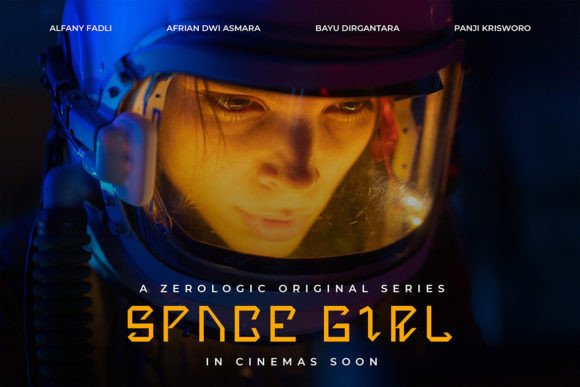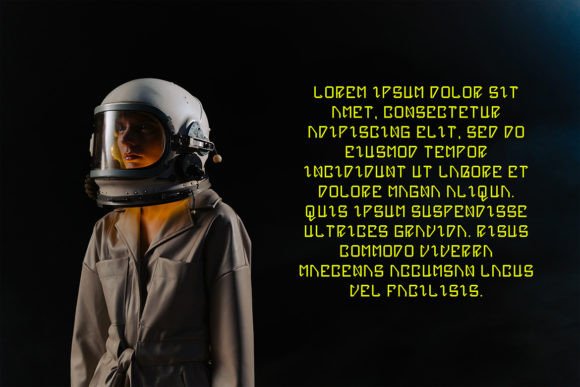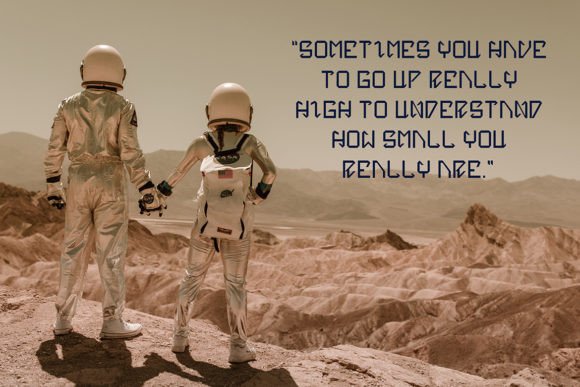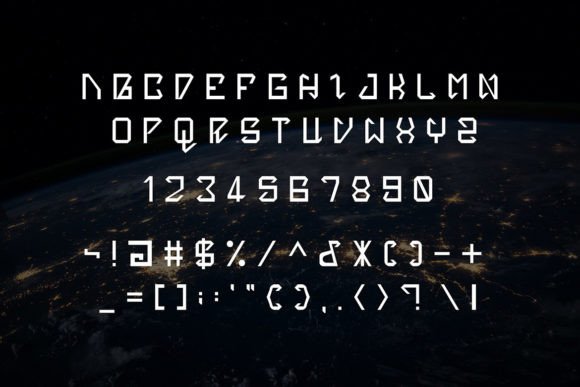
Unleash Your Creativity with Dorsey Dang Font
Have you ever stared at a blank page, trying to come up with the perfect design, but the words just won’t flow? That’s when inspiration strikes, and the right font can make all the difference. For designers, finding the perfect font can be a game-changer, elevating a simple design into a stunning masterpiece.
Introducing the Dorsey Dang Font, a modern and versatile font designed to meet the needs of creatives like you. With its unique blend of uppercase, lowercase, and numeric & symbols, this font is perfect for titles, typography, posters, magazines, brochures, packaging, and websites. Whether you’re a seasoned designer or just starting out, the Dorsey Dang Font is an essential tool in your design arsenal, helping you to create cooler, more engaging designs that stand out from the crowd.
Dorsey Dang Font Key Features
- Unique Characteristics: The Dorsey Dang Font features a unique blend of modern and vintage elements, making it perfect for creating eye-catching headlines and titles.
- Weight and Style Options: Available in multiple weights (light, regular, bold, and extra bold) and styles (italic and bold italic), allowing designers to add depth and variety to their designs.
Dorsey Dang Font Review
I recently had the chance to work with the Dorsey Dang Font, and I must say it’s a font that’s got a lot of character. Here’s what I think works well:
- ✨ Unique aesthetic: The Dorsey Dang Font has a quirky, retro vibe that’s perfect for adding some personality to your design projects.
- ✨ High-quality glyphs: The font includes a wide range of glyphs, including punctuation marks and ligatures, which makes it great for use in body copy.
- ✨ Great for headlines: The font’s bold, eye-catching design makes it perfect for use in headlines and titles.
- ⚠️ Limited language support: The font only includes a basic set of Latin characters, which might make it difficult to use for non-English language projects.
- ⚠️ Not ideal for small text: The font’s bold design can make it difficult to read in small text sizes.
Overall, I think the Dorsey Dang Font is a great choice for designers who want to add some personality to their projects. While it may have some limitations, its unique aesthetic and high-quality glyphs make it a solid choice for a wide range of design applications.
The Dorsey Dang Font is perfect for creating eye-catching headings and titles. To get the most out of it, use it sparingly and pair it with a clear and concise message.
The Dorsey Dang Font is commonly used for:
Headings and titles
Brand logos and icons
Social media graphics and ads